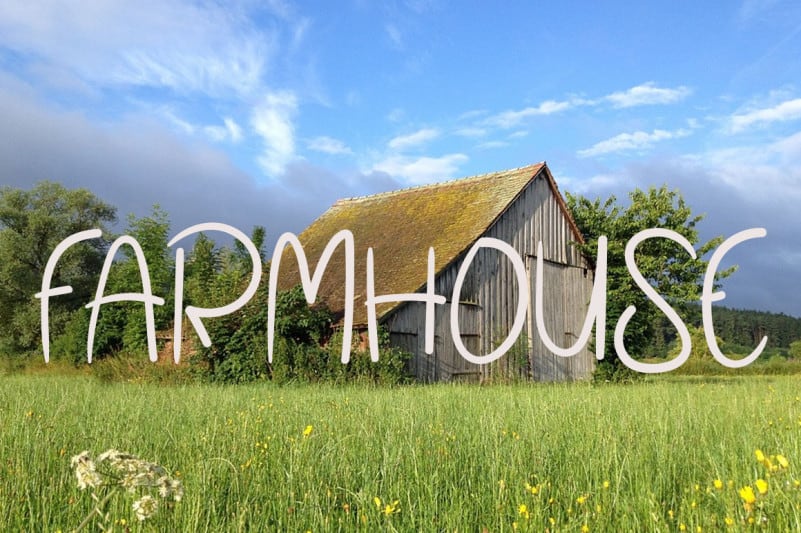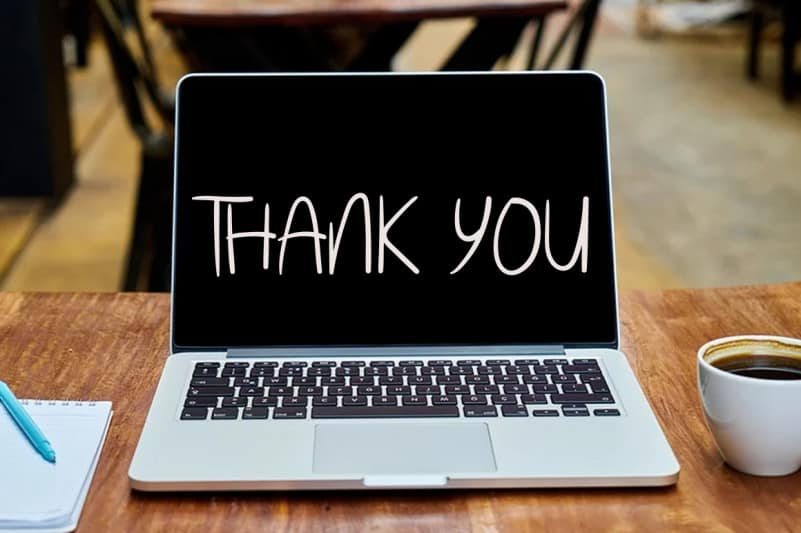
Valentine Song Font
Valentine Song Font is a simple, thin and relaxed handwritten font. Natural and adaptable, this font fits a wide pool of designs, elevating them to the highest levels.
Latest letters that can be used for various products, invitations, wall hangings, weddings, and more.